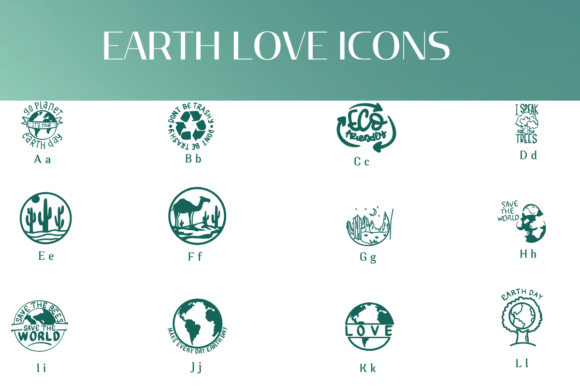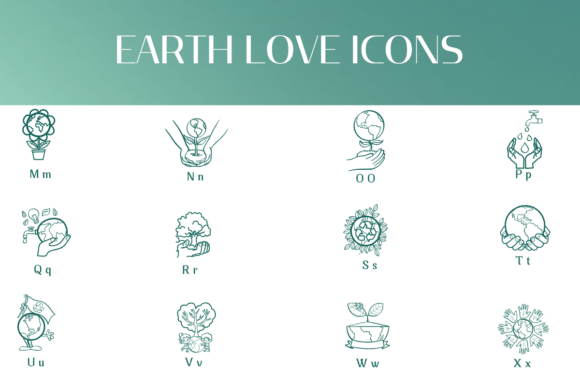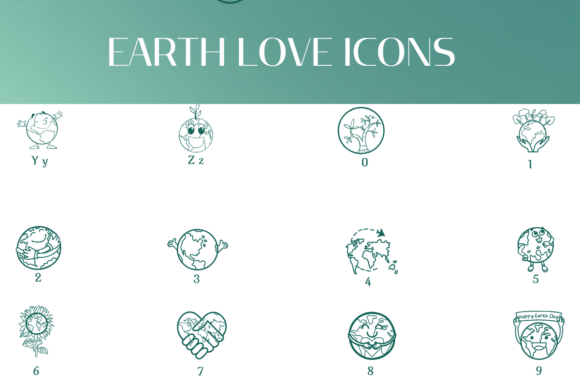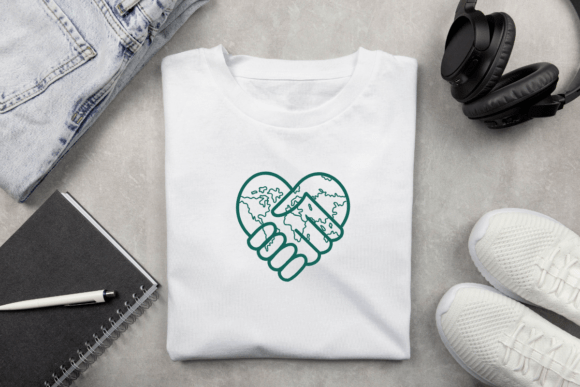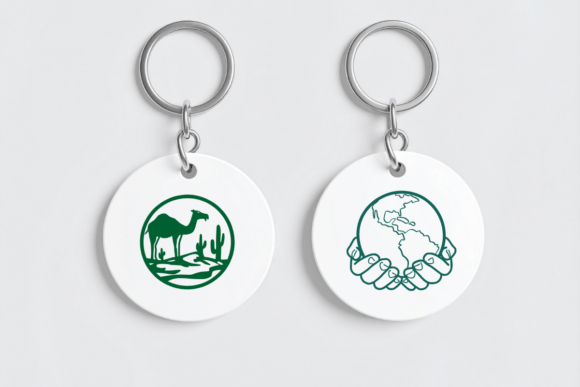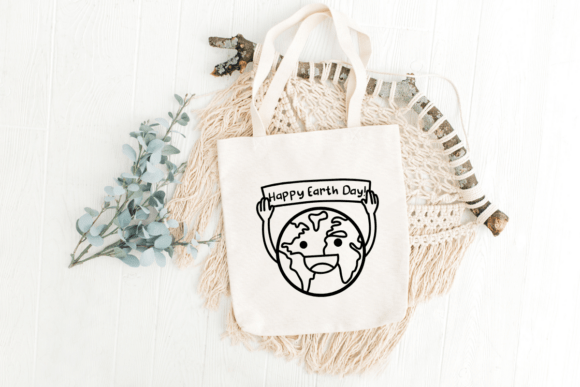
Introduction to Earth Love Icons Font
Have you ever been in the middle of a creative project, surrounded by papers, pens, and sticky notes, and suddenly you need the perfect icon to bring your idea to life? That’s exactly what happened to me the other day, and I was thrilled to discover the Earth Love Icons Font – a high-quality Dingbats Font that has been a game-changer for my designs.
As a designer, I’m always on the lookout for unique and versatile design resources that can elevate my work. The Earth Love Icons Font is more than just a pretty face; it’s a valuable tool that can be used for a wide range of creative projects, from taking notes and writing diaries to making greeting cards and designing social media posts. With its transparent background, this font is perfect for designers who want to add a touch of whimsy and personality to their work.
Key Features of Earth Love Icons Font
- High-quality design resource featuring a wide range of eco-friendly and nature-inspired icons, perfect for creative projects.
- Each icon is meticulously crafted with attention to detail, ensuring crisp and clear visuals at high resolutions (up to 300 DPI).
- Perfect for designers seeking a unique and creative design resource that aligns with their vision, ideal for branding, web design, and print materials.
- Comes in a range of sizes, from small to large, allowing for flexibility in design applications.
Honest Review: Earth Love Icons Font
As a designer, I’m always on the lookout for high-quality design resources to elevate my creative projects. Recently, I had the opportunity to try out the Earth Love Icons Font, and I must say it’s been a pleasant surprise.
Here are some of the things that work well with this font: ✨
- The unique and diverse set of icons available, making it perfect for any creative project that requires a touch of whimsy.
- The transparent background option allows for seamless integration with any design.
While the Earth Love Icons Font is a great design resource, there are a few limitations to consider: ⚠️
- Some of the icons may not be as detailed or high-resolution as I would have liked.
Overall, I’m impressed with the Earth Love Icons Font, and I would recommend it to anyone looking for a unique and free design resource. Just keep in mind its limitations and use it judiciously in your creative projects.
Tips for Getting the Most Out of it
Use the Earth Love Icons Font to create eye-catching and eco-friendly designs. Experiment with different icon combinations to add depth and interest to your design.
The Earth Love Icons Font is perfect for a variety of creative projects, including environmental campaigns, eco-friendly product designs, and green lifestyle magazines. Its high quality and transparent background make it a valuable design resource for any project.